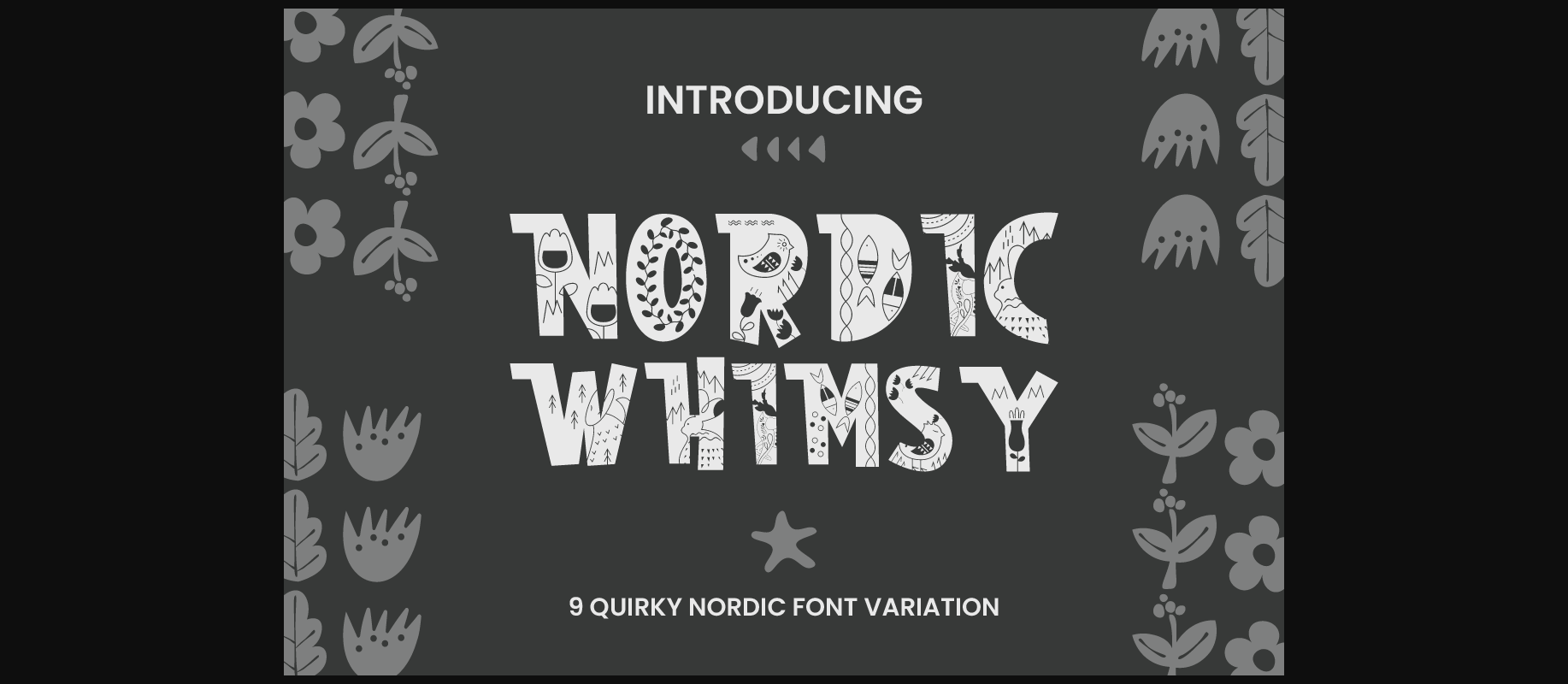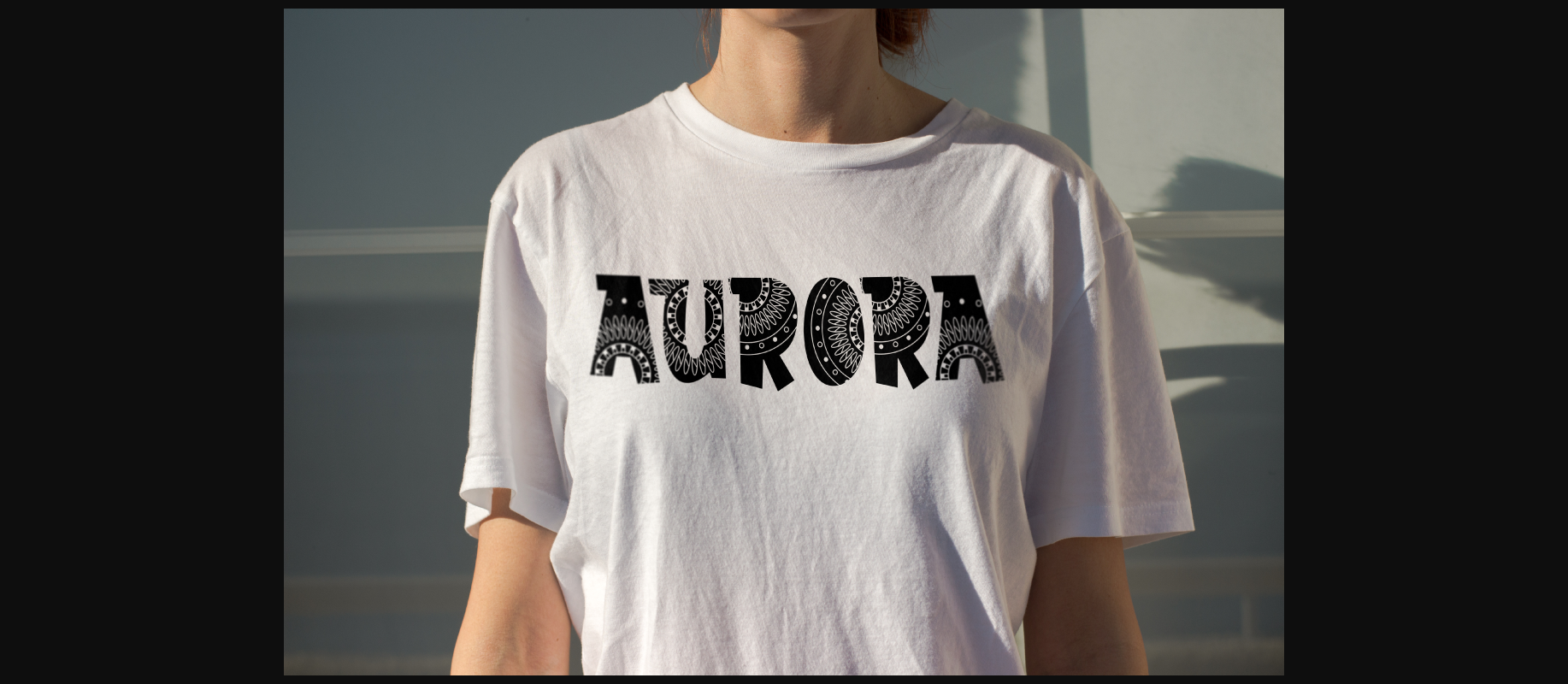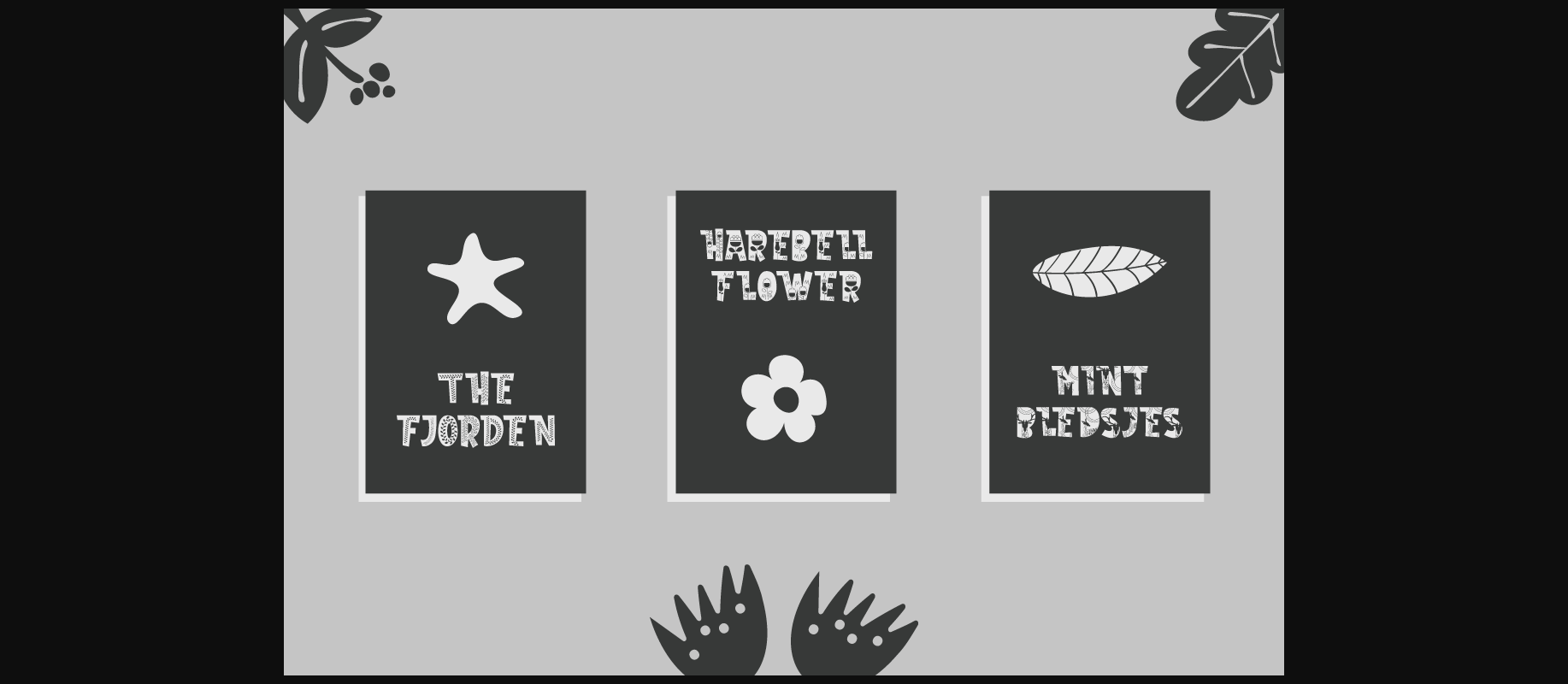
About Nordic Whimsy Font
Nordic Whimsy – 9 Quirky Nordic Font is a charming and playful typeface, designed to encapsulate the whimsical essence of Nordic design. This decorative font is adorned with a quirky and fun display that evokes the feel of the Nordic heritage and antiquity. It can be used effectively on its own or in combination with its delightful variations.
With nine distinct decorative variations, Nordic Whimsy is a versatile font that is perfect for children’s projects, crafting endeavors, and creative designs that seek to bring fun and playfulness to life. Its thematic focus on decorative styles makes it an ideal choice for those seeking a festive and lively aesthetic.
This font is suitable for various applications, including logos, crafting projects, invitations, greeting cards, stickers, children’s books, magazines, and any design related to the Nordic theme. Whether you’re a crafter or working on children’s materials, Nordic Whimsy adds a touch of whimsy and Nordic charm to your creative work.
With nine distinct decorative variations, Nordic Whimsy is a versatile font that is perfect for children’s projects, crafting endeavors, and creative designs that seek to bring fun and playfulness to life. Its thematic focus on decorative styles makes it an ideal choice for those seeking a festive and lively aesthetic.
This font is suitable for various applications, including logos, crafting projects, invitations, greeting cards, stickers, children’s books, magazines, and any design related to the Nordic theme. Whether you’re a crafter or working on children’s materials, Nordic Whimsy adds a touch of whimsy and Nordic charm to your creative work.